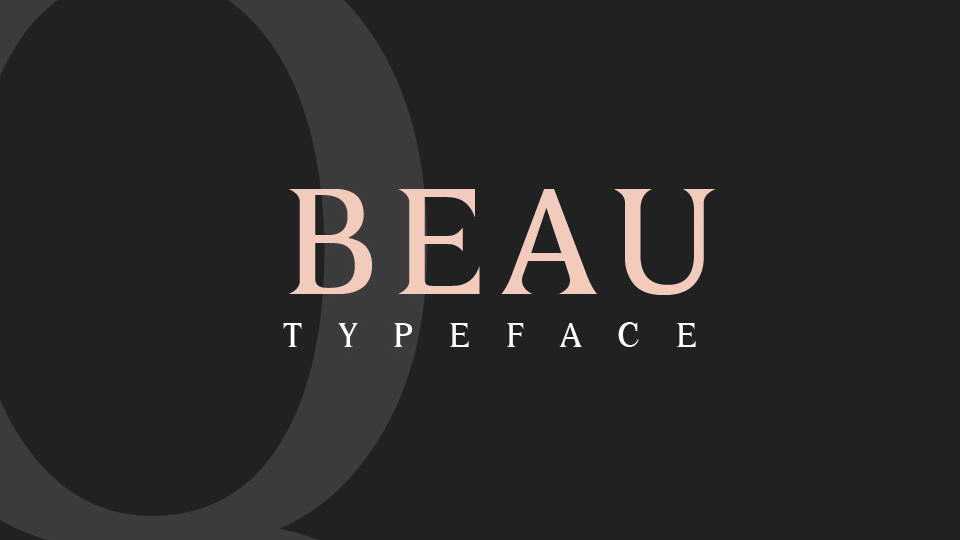
Download Beau font, an elegant serif typeface with medium contrast. Beau font works just as well as large headline text as it does small body text.
Designer: Tapiwanashe Sebastian Garikayi